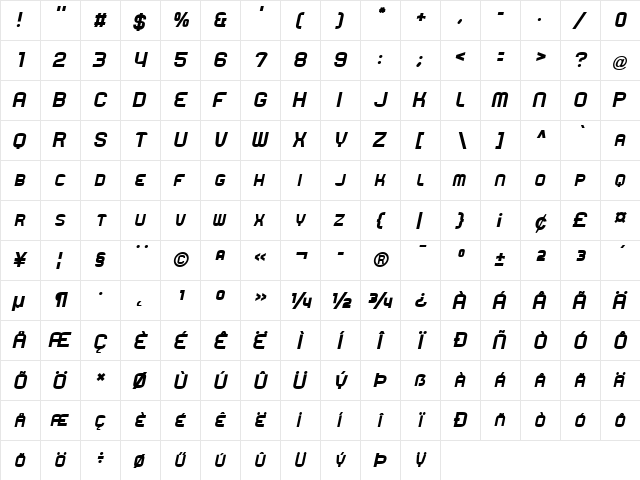
Rueck Italic
Design Context for Rueck Typeface
Rueck is a composed and adaptable typeface that performs quietly and consistently across a wide range of design contexts. The dynamic lean of this cut emphasises speed and emphasis in any layout.
Pro Tip: Use Rueck for emphasis, pull quotes, and subheadings where its slanted energy can add rhythm to the layout.